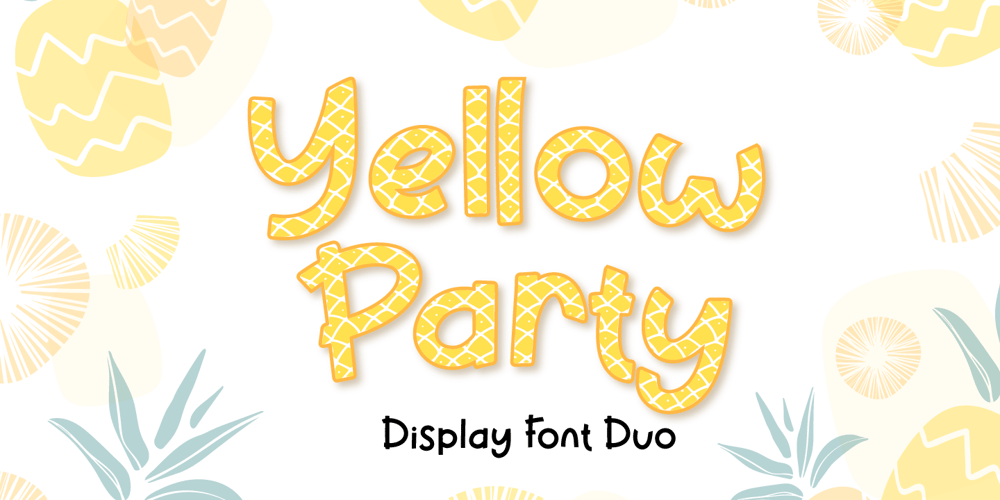
Yellow Party Font Family was designed by Fadli Ramadhan Iskandar and published by Attype Studio. Yellow Party contains 2 styles and family package options. Yellow Party is display font with the texture of pineapple and includes two styles: Regular and Display.Yellow Party is perfect for branding, logos, invitations, stationery, social media posts, product packaging, merchandise, blog designs, game titles, cute style designs, Book/Cover Titles and more.What’s Included :- Multilingual Support (Afrikaans, Albanian, Catalan, Danish, Dutch, English, Estonian, Finnish, French, German, Icelandic, Italian, Norwegian, Portugese, Spanisch, Swedish, Zulu)- 6 ligatures —Hope you enjoy with our font!Attype Studio